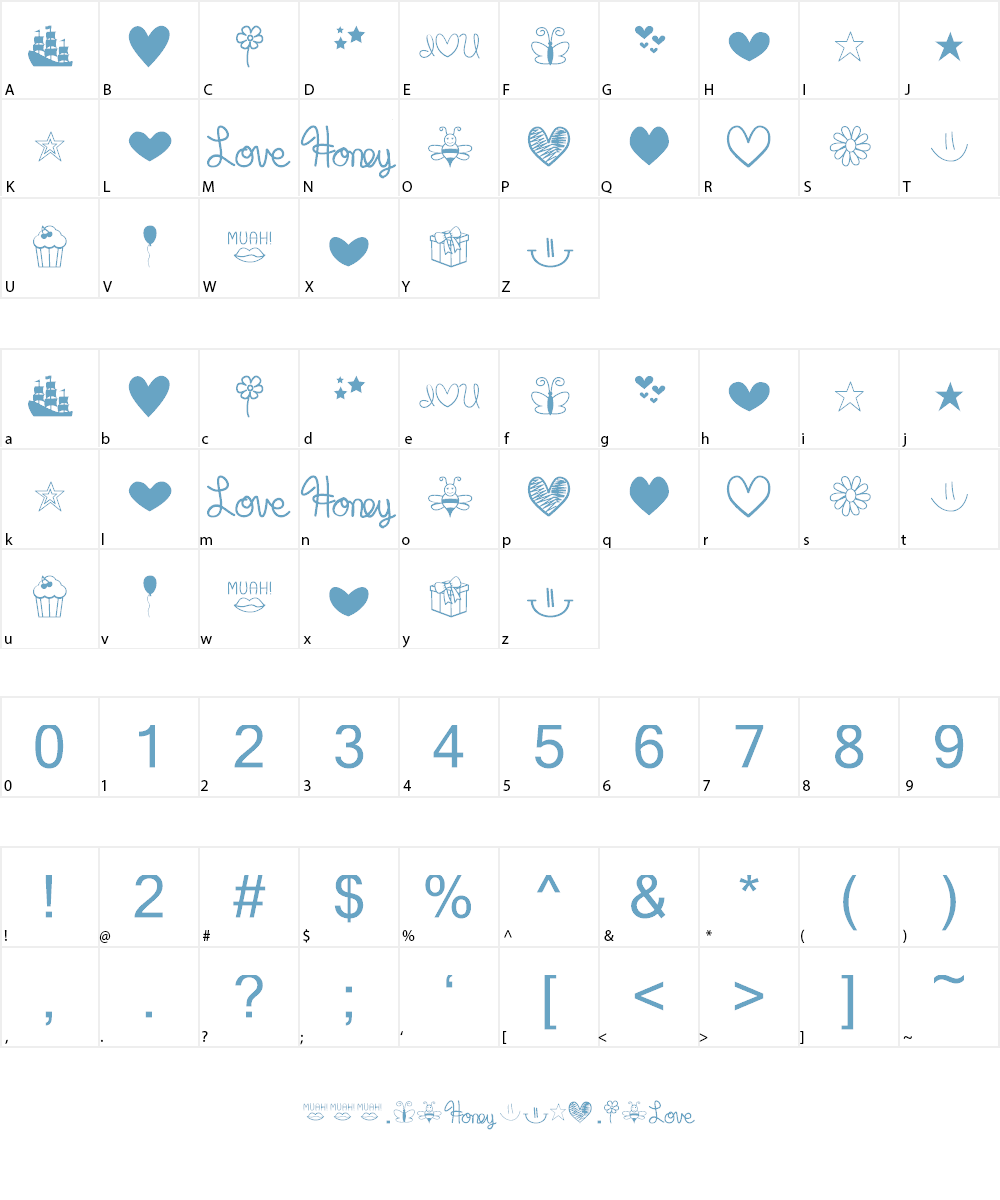
This ding set includes all the special characters from my previous fonts (Ships In The Night, Fight For My Love,
My Font Addiction, Honeybee, and Happy Birthday, Baby).